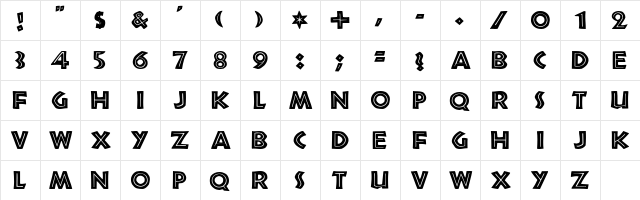
Tribeca Regular
Design Context for Tribeca Typeface
Tribeca is a composed and adaptable typeface that performs quietly and consistently across a wide range of design contexts.